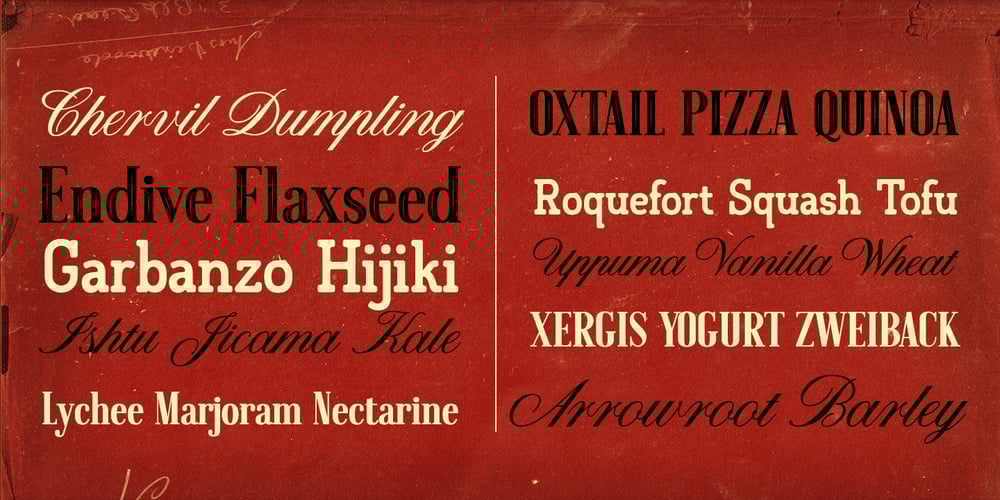
American Oak Font Family was designed by Ian Barnard and published by Ian Barnard. American Oak contains 4 styles and family package options. I’ve always been drawn to the beautiful typography of whiskey, gin, rum & bourbon bottle labels, as they enhanced the history that is behind this aged old spirits. A combination of elegant scripts and rugged serifs, these labels give sensibility to the slow process which these spirits go through in the distilling process.